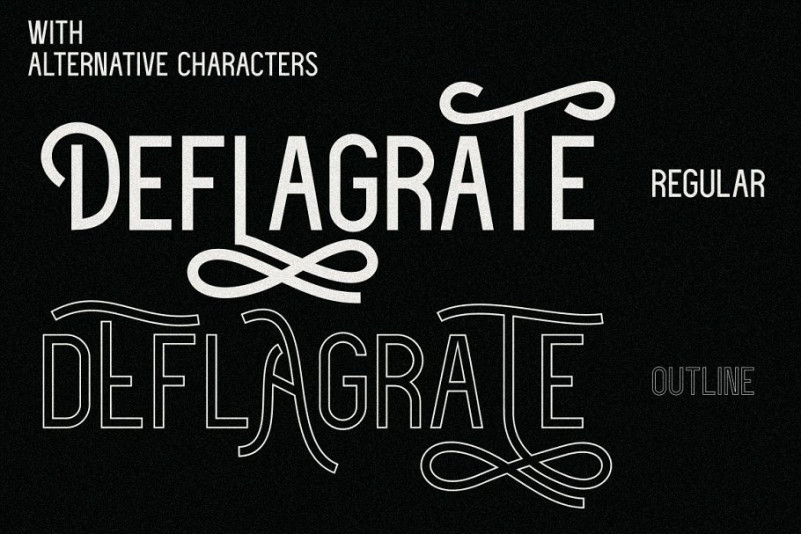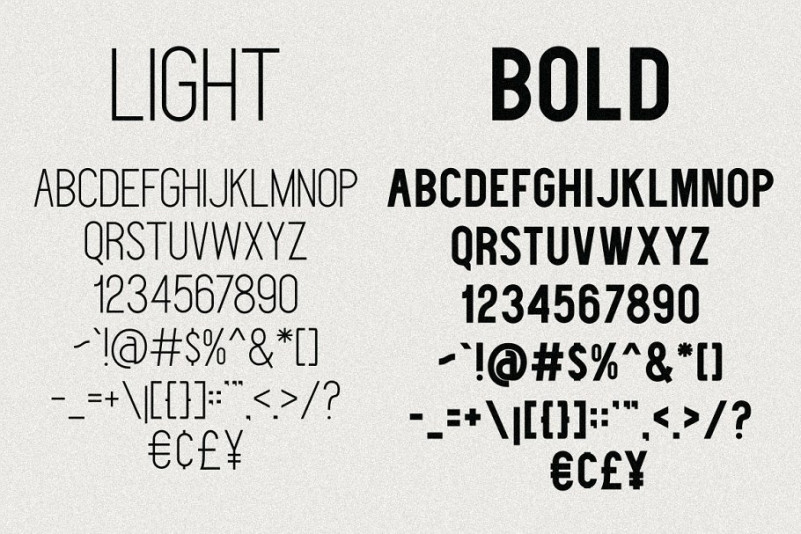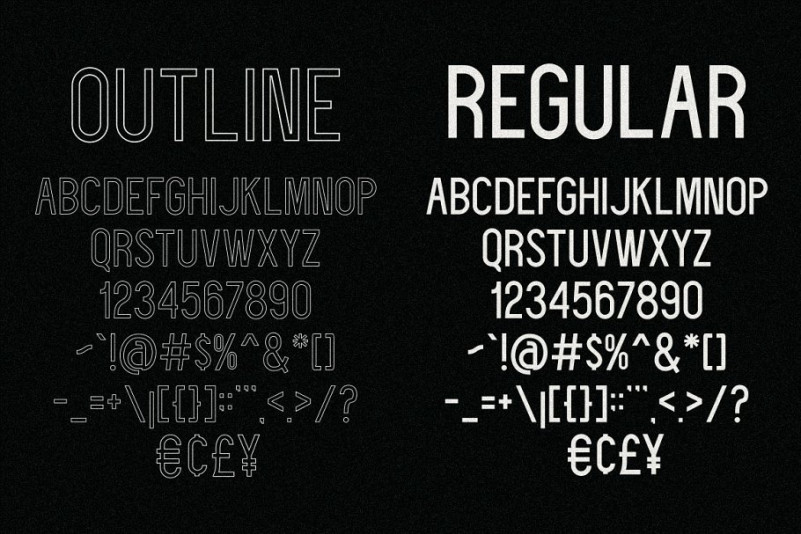
Deflagrate Font Family – Demo
Continue to be a modern sans-serif font with 4 fonts. It’s a humanist sans serif typeface that has been designed to be efficient and comfortable to use across all applications. Introducing Deflagrate Font. It is designed and shared by DaldSgh. Deflagrate fonts comes with alternate characters. very suitable as to make a design choice for magazines, packaging, branding , website header, posters, greeting cards, letterhead, and more creative project..